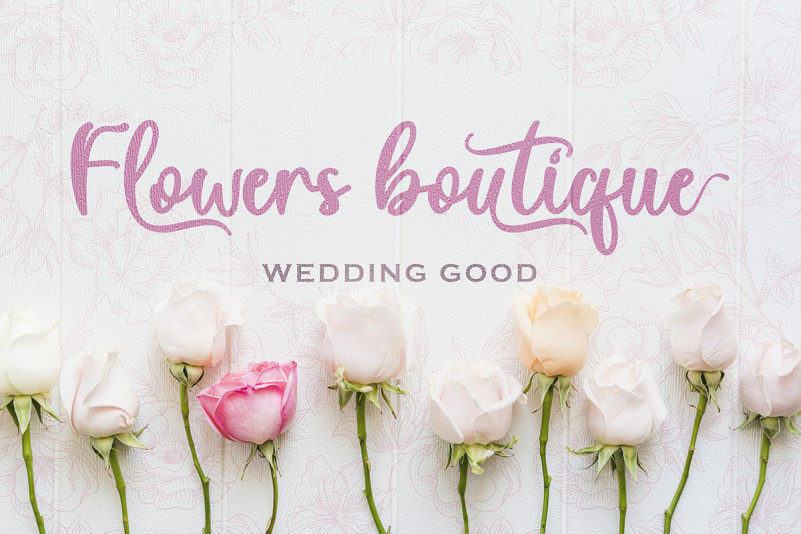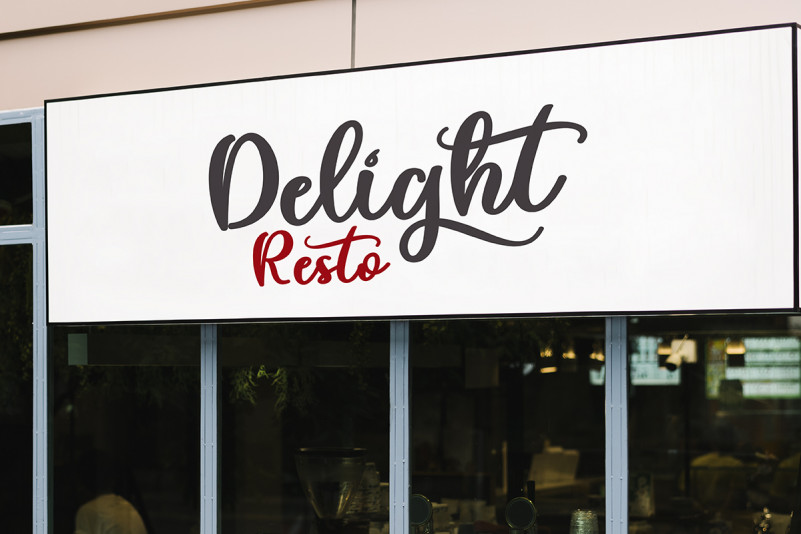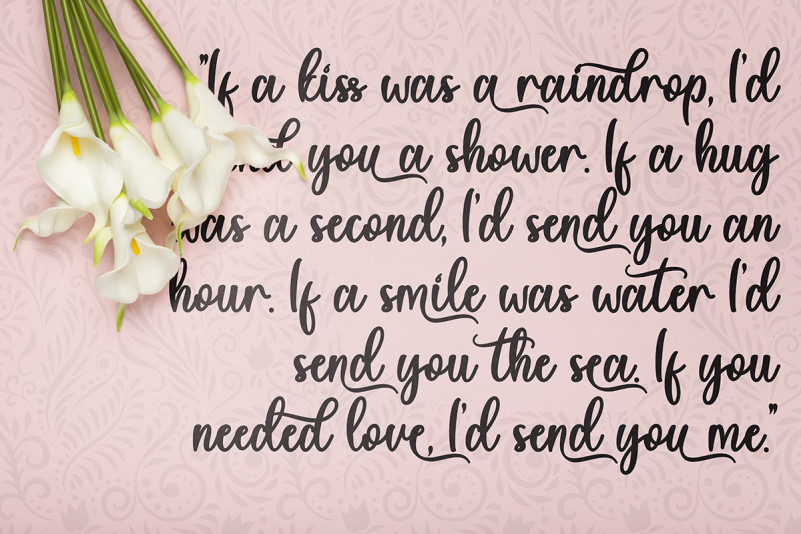
Light Sunday Script Font
This is a modern calligraphy font with beautiful lettering. Letter decoration is very easy to use because it has been specially designed. This font is perfect for all your types of work. This font can be used for summer, spring, back to school, logos, branding, banners, posters, prints, weddings, invitations, birthdays, boutiques, promotions, social media, quotes.